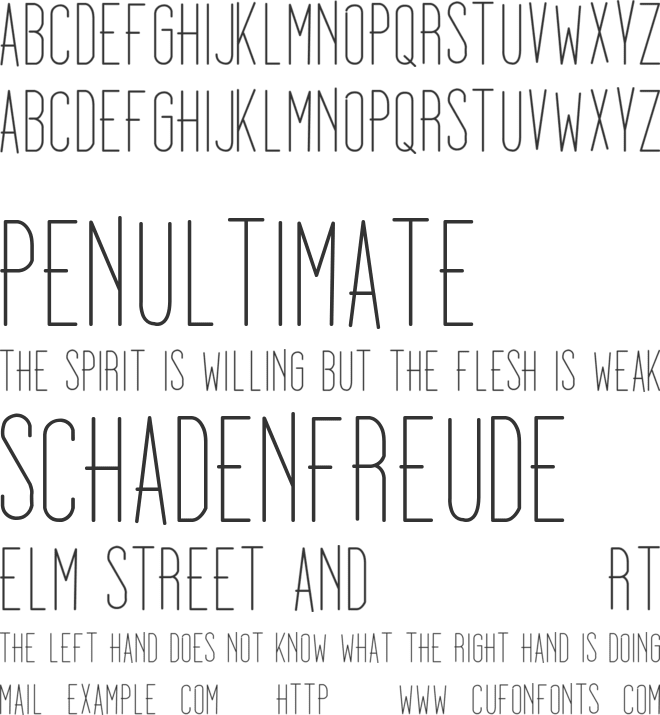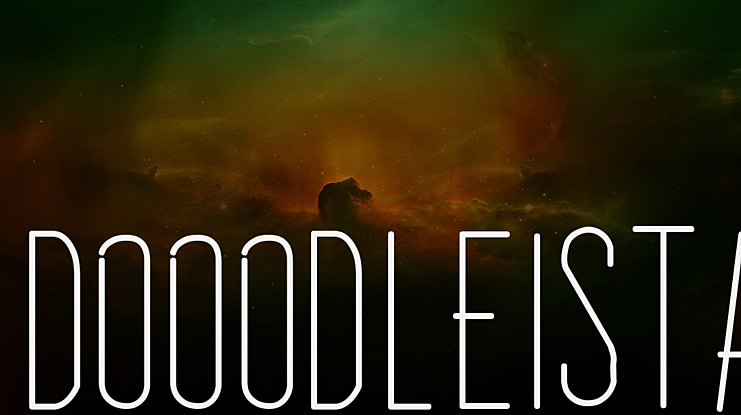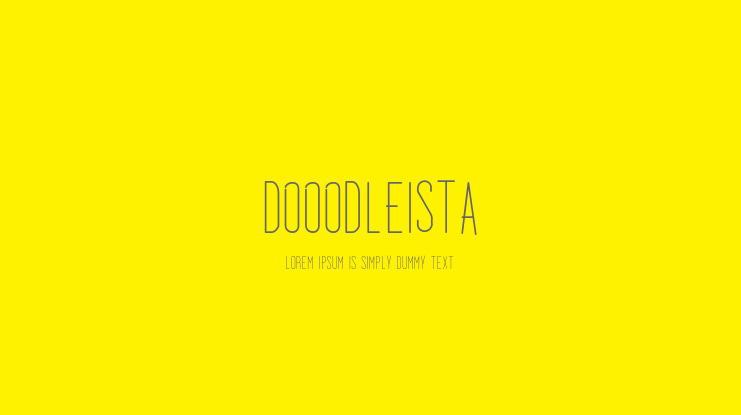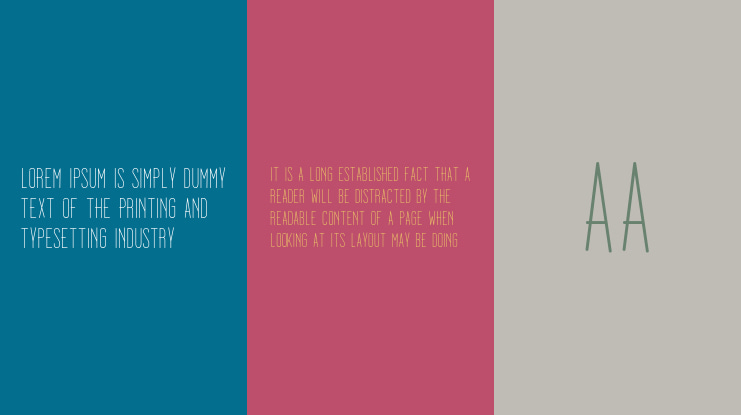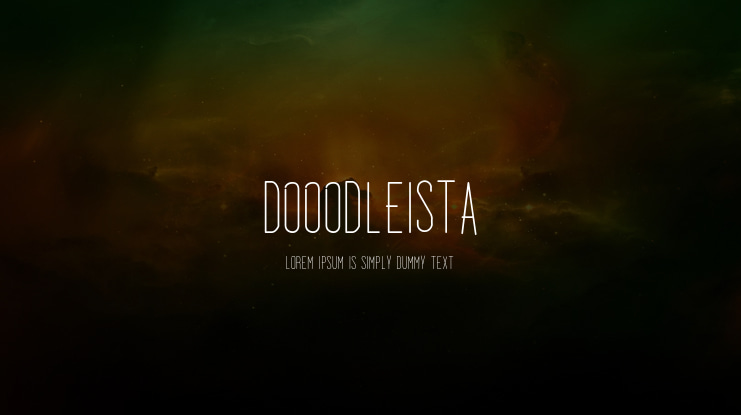
Dooodleista Font Family
Filiz Sahin
Why Doodle? This question can be answered with 2 simple words. For Fun. This is the first and most important rule for doodle! Have fun with it!